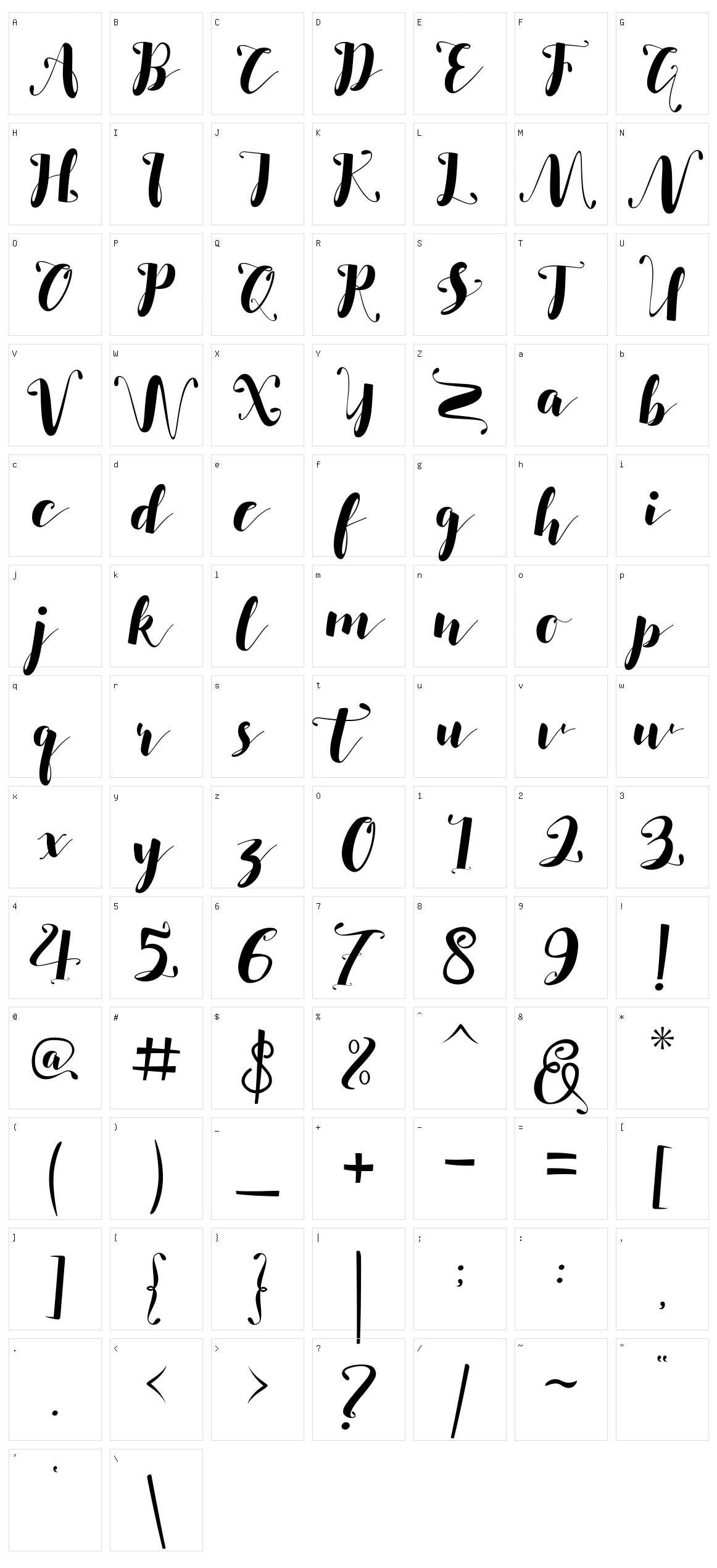
The free font Salsabilla is carefully designed by Siwox Linetotype, showcasing a thoughtful balance of creativity and usability and falls under the Script font style. When you download the ZIP file, it contains only 40.14 KB of font files, making it lightweight and quick to download. Please review the license details below to understand permitted usage and distribution rights. If license information is not available, we recommend using this font for personal projects only or contacting the author directly for commercial usage permissions.